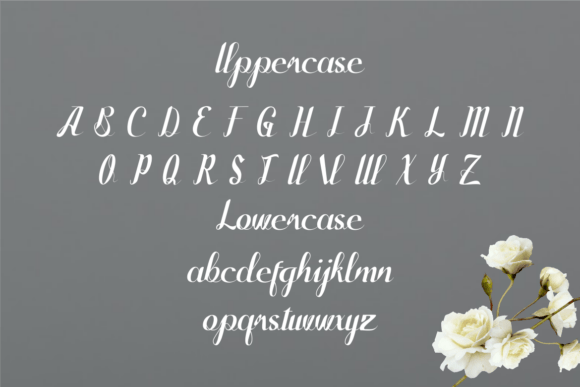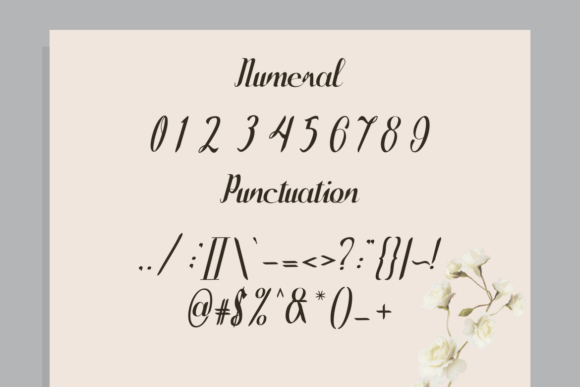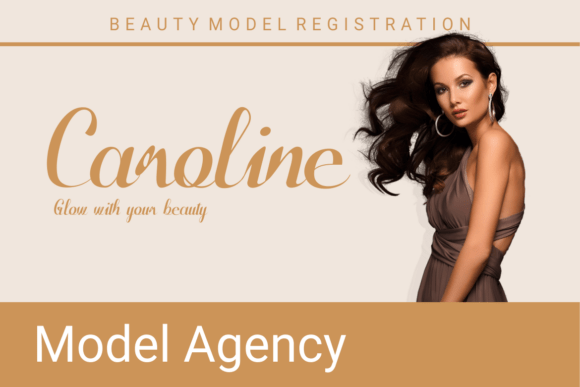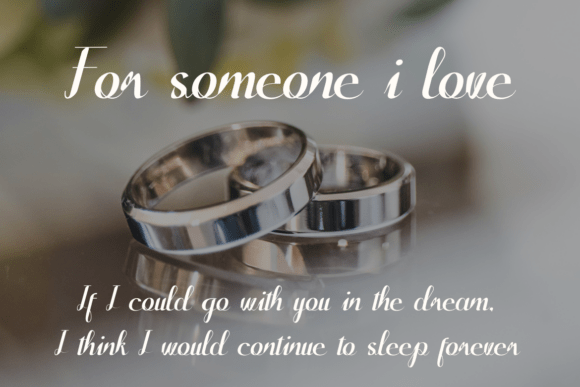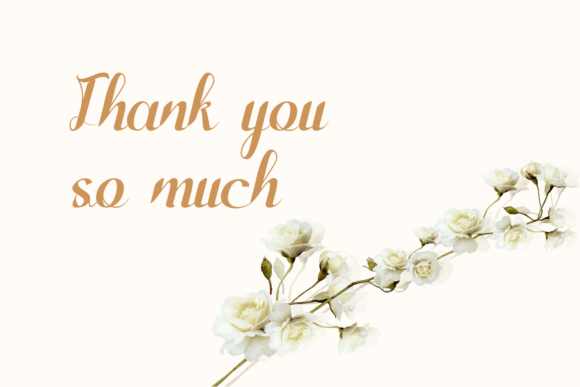
Introducing Blurry Font: The Epitome of Elegance and Sophistication
Are you a designer or crafter looking for a font that exudes elegance, sophistication, and romance? Look no further than Blurry Font, a stylish and graceful calligraphy font that is sure to elevate your designs to new heights. With its smooth curves and flowing strokes, Blurry Font is the perfect choice for a variety of design applications, from wedding invitations and branding to product packaging and elegant logos.
The Characteristics of Blurry Font
Blurry Font is a calligraphy font that boasts a natural, handwritten feel, making it ideal for designers and crafters who want to add a touch of warmth and personality to their designs. Its smooth curves and flowing strokes give it a fluid, organic look that is both elegant and sophisticated. Whether you’re looking to create a romantic wedding invitation or a luxurious brand identity, Blurry Font is the perfect choice.
Perfect for Wedding Invitations and Branding
Wedding invitations are one of the most popular uses for Blurry Font, and for good reason. The font’s elegant, cursive script is perfectly suited to formal wedding invitations, and its romantic feel helps to set the tone for a special day. But Blurry Font is not just limited to wedding invitations – it’s also a great choice for branding and advertising. The font’s sophisticated, high-end feel makes it perfect for luxury brands, and its smooth curves and flowing strokes help to create a sense of movement and energy.
Ideal for Product Packaging and Logos
Blurry Font is not just limited to digital applications – it’s also a great choice for product packaging and logos. The font’s elegant, cursive script looks beautiful on product labels and packaging, and its sophisticated feel helps to elevate the brand. Whether you’re looking to create a luxurious skincare product or a high-end fashion brand, Blurry Font is the perfect choice.
Why Choose Blurry Font?
- Elegant and sophisticated: Blurry Font is a truly elegant and sophisticated font that is perfect for designers and crafters who want to add a touch of luxury to their designs.
- Natural, handwritten feel: The font’s natural, handwritten feel makes it perfect for designers and crafters who want to add a touch of warmth and personality to their designs.
- Versatile: Blurry Font is a versatile font that can be used for a variety of design applications, from wedding invitations and branding to product packaging and logos.
- Easy to read: Despite its elegant, cursive script, Blurry Font is easy to read, making it perfect for body text as well as headlines.
In conclusion, Blurry Font is a stylish and elegant calligraphy font that is perfect for designers and crafters who want to add a touch of sophistication and romance to their designs. With its smooth curves and flowing strokes, Blurry Font is the perfect choice for a variety of design applications, from wedding invitations and branding to product packaging and logos. So why not give Blurry Font a try and see the difference it can make in your designs?